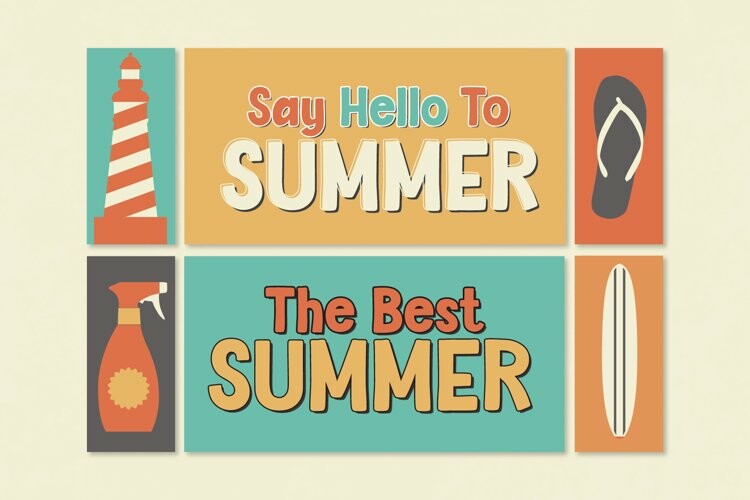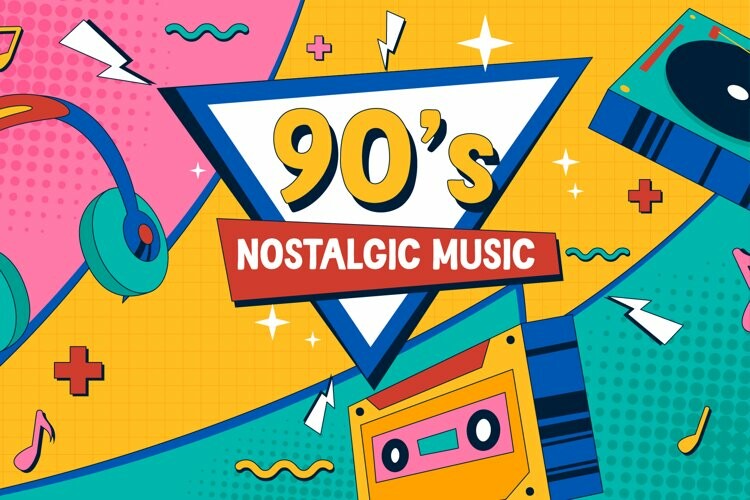
School Bus Font
School Bus Font is a bold and distinctive display font that features thick, informal lettering that exudes confidence and fun. With its unique style, it is perfect for use in a wide variety of creative projects, including children’s designs, greeting cards, posters, logos, and more.